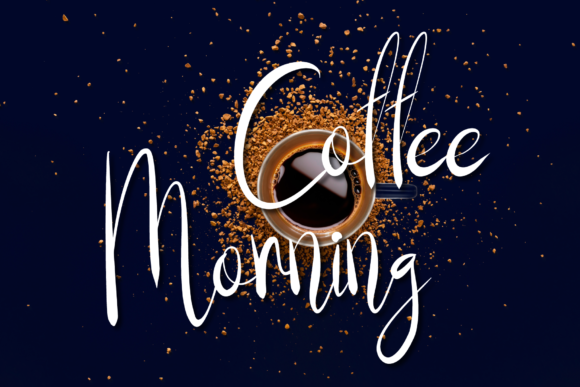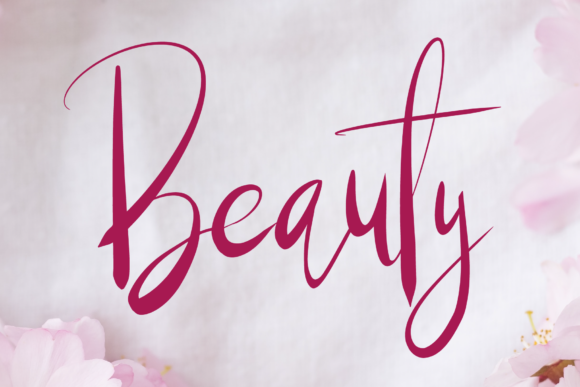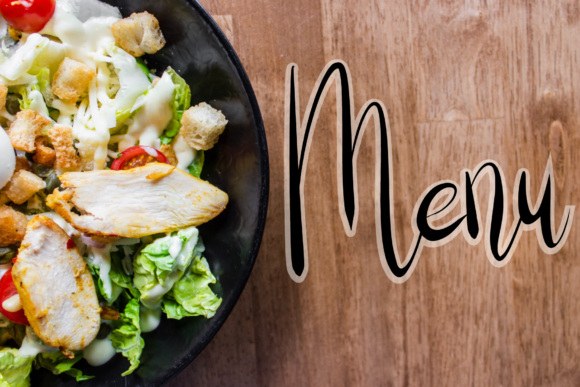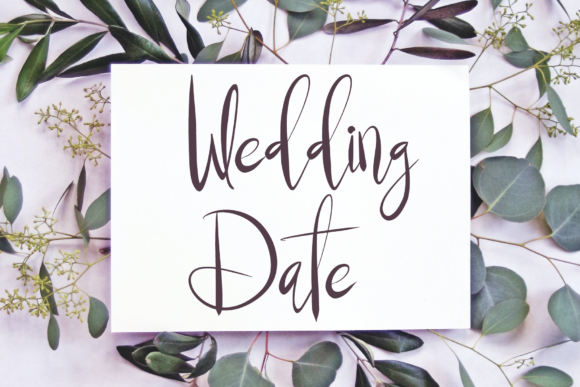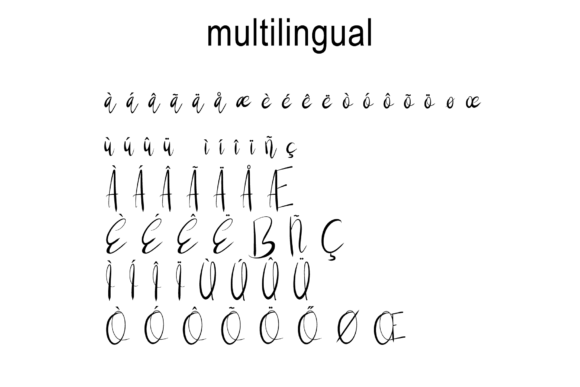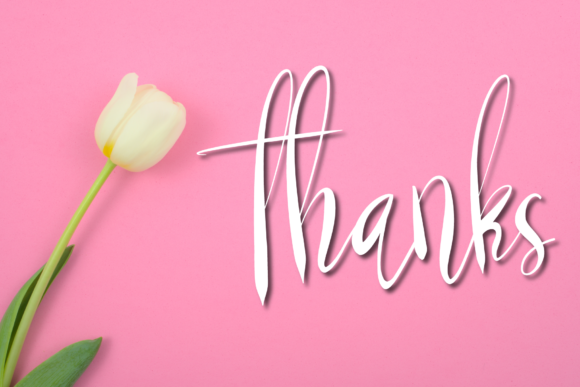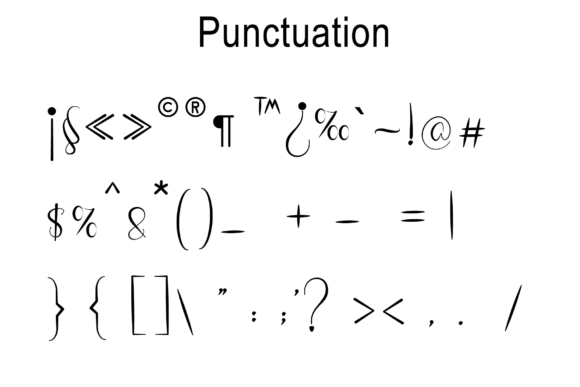
Boost Now Font
About Boost Now Font
Boost Now is a beautiful and relaxed handwritten font. It is suitable for various design needs such as business cards, wedding invitations, banner ads and various other creations.